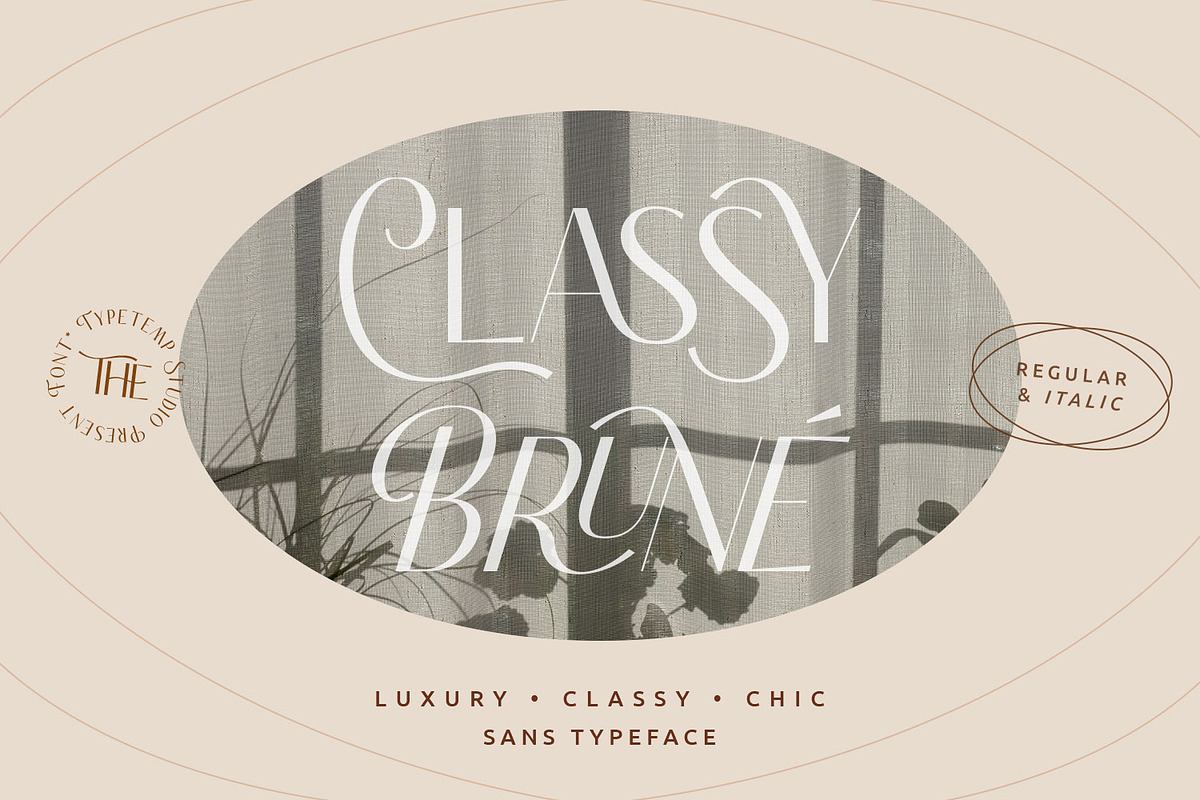
Classy Brune Sans Serif Typeface Free Download
Classy Brune Sans Serif Typeface Free Download is a sleek and versatile font designed to deliver a clean, modern look. With its smooth curves, contemporary style, and minimalist aesthetic, this typeface is perfect for logos, branding, editorial layouts, packaging, and websites that require a polished and professional appearance.
Whether you're building a modern brand identity, creating sophisticated marketing materials, or designing a clean, user-friendly website, Classy Brune brings clarity and refinement to your typography. It’s the perfect choice for designers who appreciate simplicity with a touch of elegance.